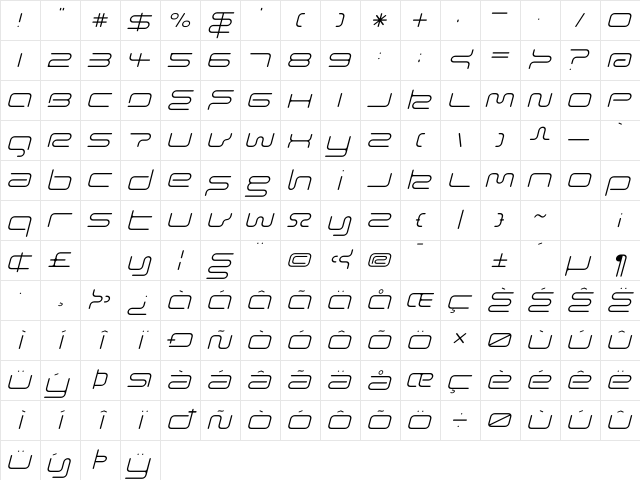
Euphoric ThinItalic Free Font
Euphoric ThinItalic
Style: ThinItalic
Design Context for Euphoric
Euphoric is a composed and adaptable typeface that performs quietly and consistently across a wide range of design contexts. The slanted form adds forward momentum and visual energy. Its slender proportions lend an understated elegance to any composition.
Pro Tip: Use Euphoric for emphasis, pull quotes, and subheadings where its slanted energy can add rhythm to the layout.